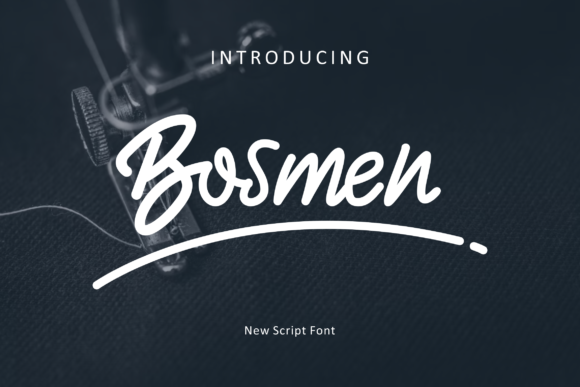
Bosmen Font: A Bold and Authentic Script Font for Your Branding Needs
In the world of typography, fonts play a crucial role in conveying the message and tone of a brand. With thousands of fonts available, choosing the right one can be a daunting task. However, if you’re looking for a bold and authentic script font that can elevate your branding project, look no further than Bosmen Font. In this article, we’ll explore the features and benefits of Bosmen Font and why it’s an excellent choice for your next project.
What is Bosmen Font?
Bosmen Font is a bold and authentic script font designed to make a statement. Its unique and elegant style makes it perfect for a wide range of applications, from logos and t-shirt printing to sports and more. The font’s bold and confident appearance is sure to grab attention and leave a lasting impression.
Key Features of Bosmen Font
- Bold and Authentic: Bosmen Font is a bold and authentic script font that exudes confidence and elegance.
- Versatile: The font is suitable for a wide range of applications, including logos, t-shirt printing, sports, and more.
- Unique Style: Bosmen Font has a unique and distinctive style that sets it apart from other fonts.
- Elegant: The font’s elegant appearance makes it perfect for high-end branding projects.
Why Choose Bosmen Font?
With so many fonts available, why choose Bosmen Font? Here are a few reasons why Bosmen Font stands out from the rest:
1. Uniqueness
Bosmen Font has a unique and distinctive style that sets it apart from other fonts. Its bold and authentic appearance makes it perfect for brands that want to make a statement.
2. Versatility
Bosmen Font is a versatile font that can be used in a wide range of applications. Whether you’re creating a logo, t-shirt, or sports-related branding project, Bosmen Font is an excellent choice.
3. Elegance
Bosmen Font has an elegant appearance that makes it perfect for high-end branding projects. Its sophisticated style is sure to impress your audience and leave a lasting impression.
How to Use Bosmen Font?
Using Bosmen Font is easy. Here are a few tips to get you started:
1. Logos
Bosmen Font is perfect for logos that require a bold and authentic script font. Use it to create a unique and memorable logo that represents your brand.
2. T-Shirt Printing
Bosmen Font is an excellent choice for t-shirt printing. Its bold and confident appearance makes it perfect for creating eye-catching designs.
3. Sports Branding
Bosmen Font is also suitable for sports-related branding projects. Use it to create a bold and dynamic logo or design that represents your team or brand.
Benefits of Using Bosmen Font
Using Bosmen Font offers several benefits, including:
1. Increased Brand Recognition
Bosmen Font’s unique and bold appearance makes it perfect for creating a memorable brand identity.
2. Improved Brand Image
Bosmen Font’s elegant and sophisticated style makes it perfect for high-end branding projects.
3. Versatility
Bosmen Font is a versatile font that can be used in a wide range of applications, making it an excellent addition to your font library.
In conclusion, Bosmen Font is a bold and authentic script font that’s perfect for any branding project. Its unique and elegant style makes it suitable for a wide range of applications, from logos and t-shirt printing to sports and more. With its versatility, elegance, and bold appearance, Bosmen Font is an excellent choice for brands that want to make a statement. So why wait? Download Bosmen Font today and take your branding project to the next level!